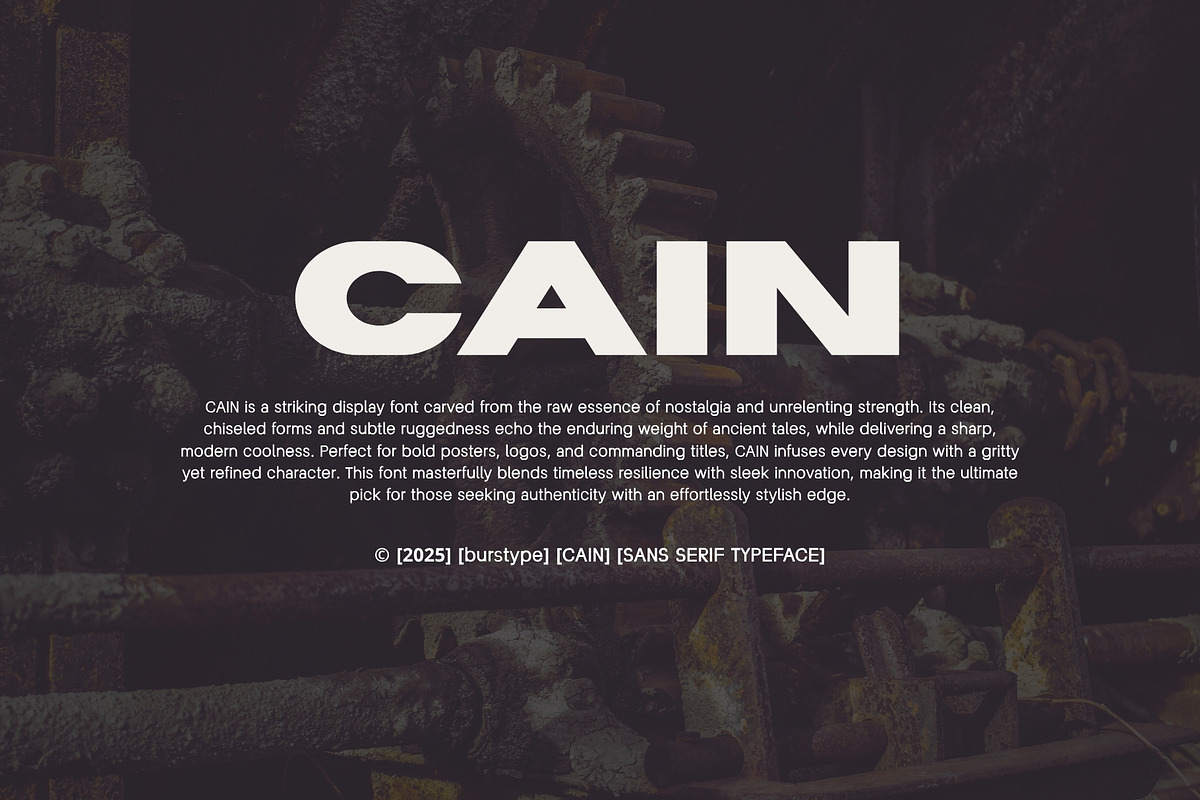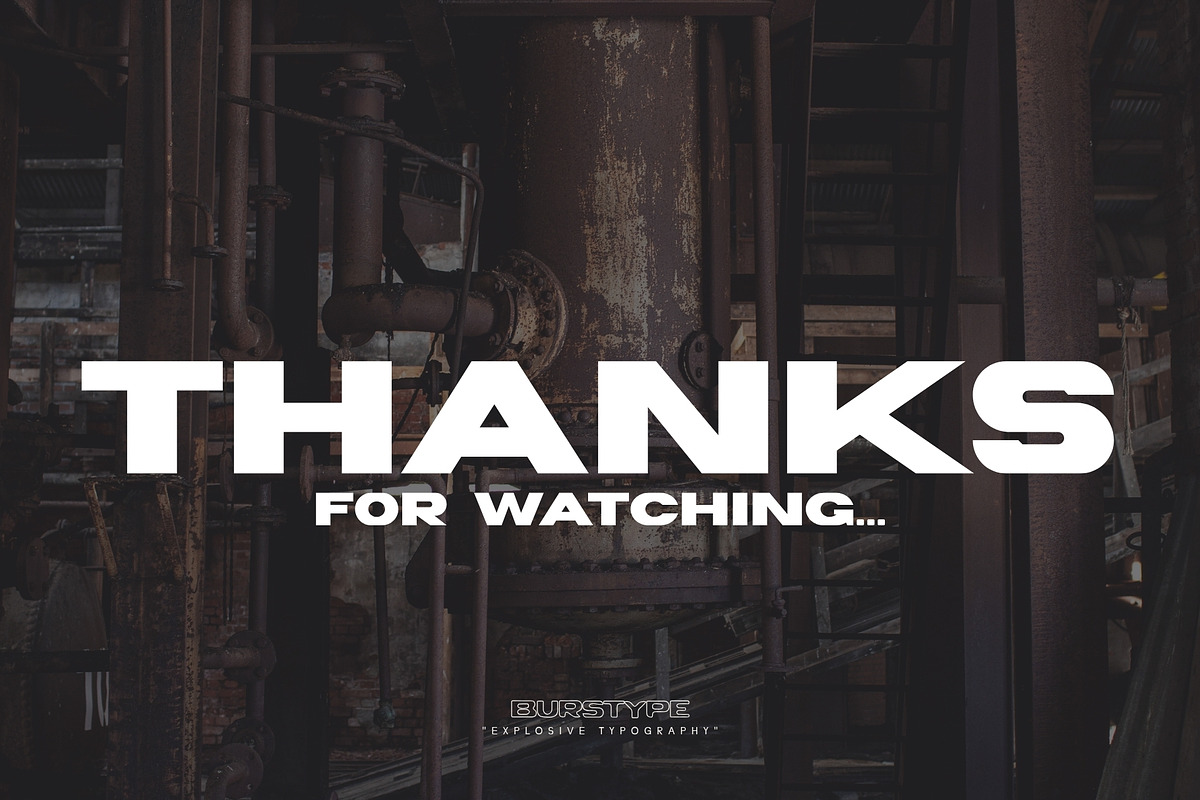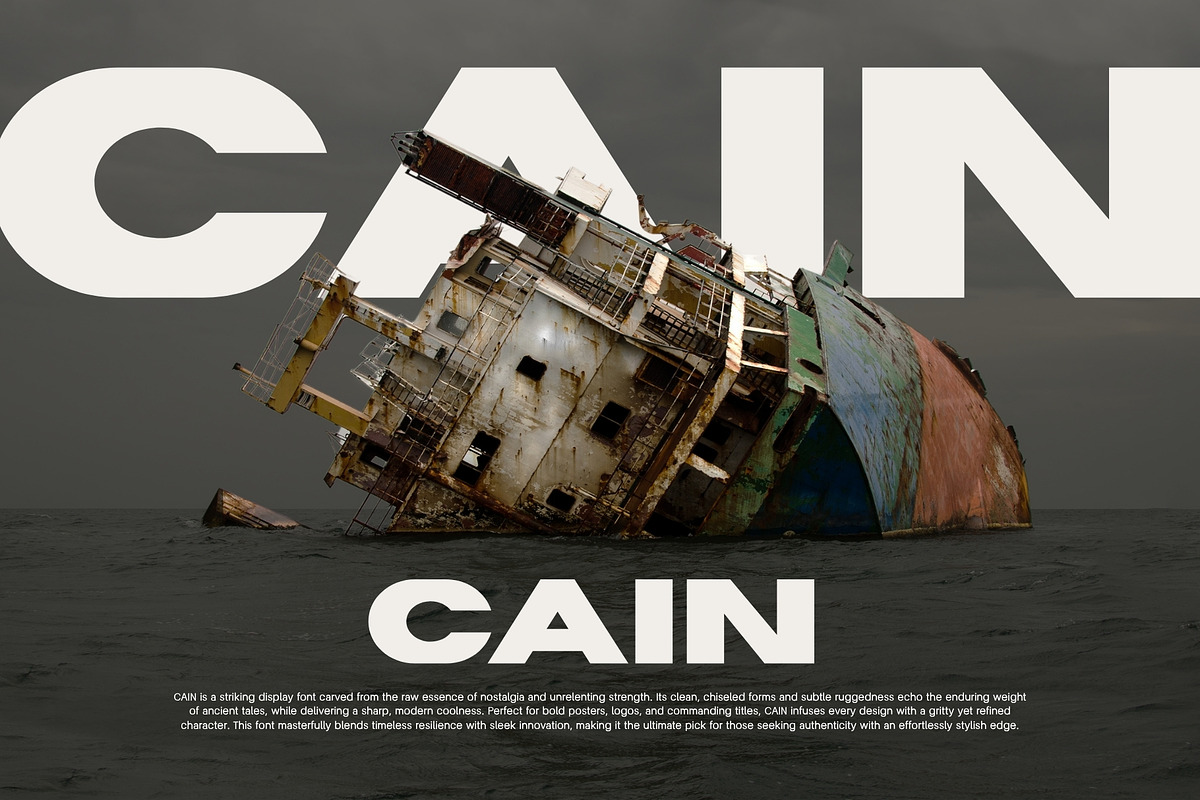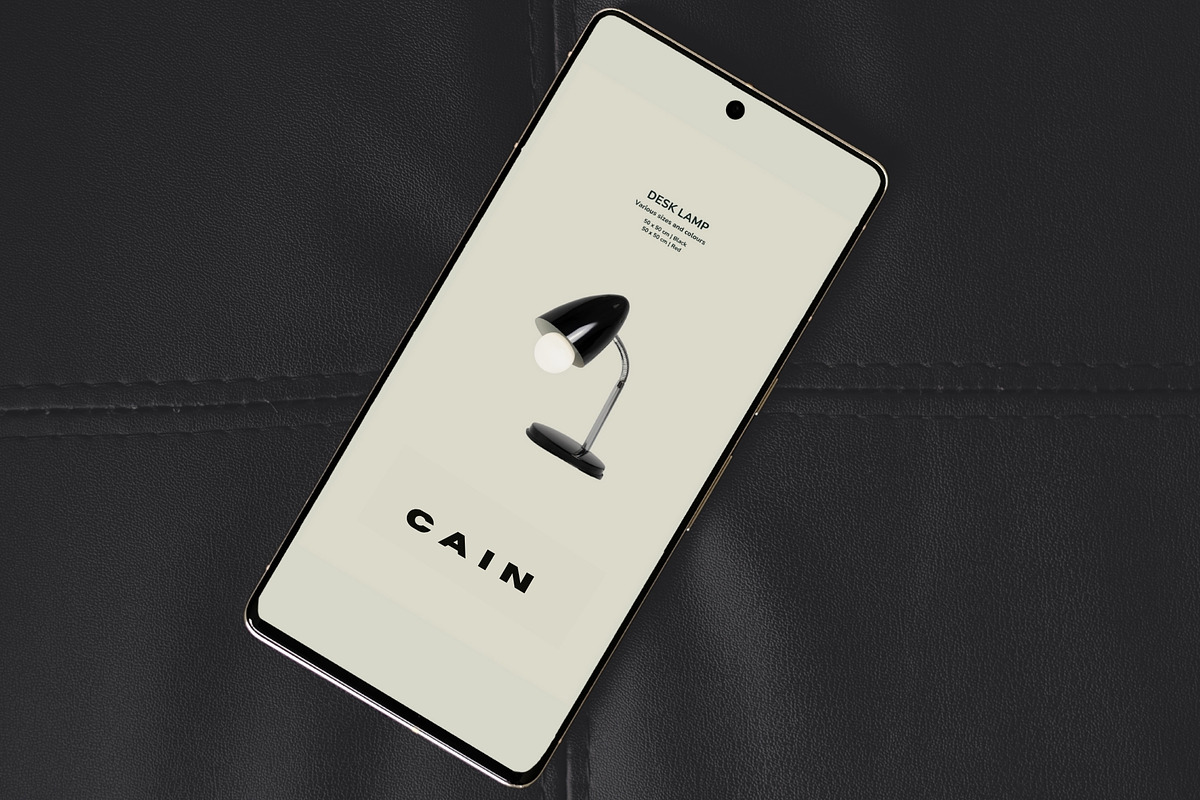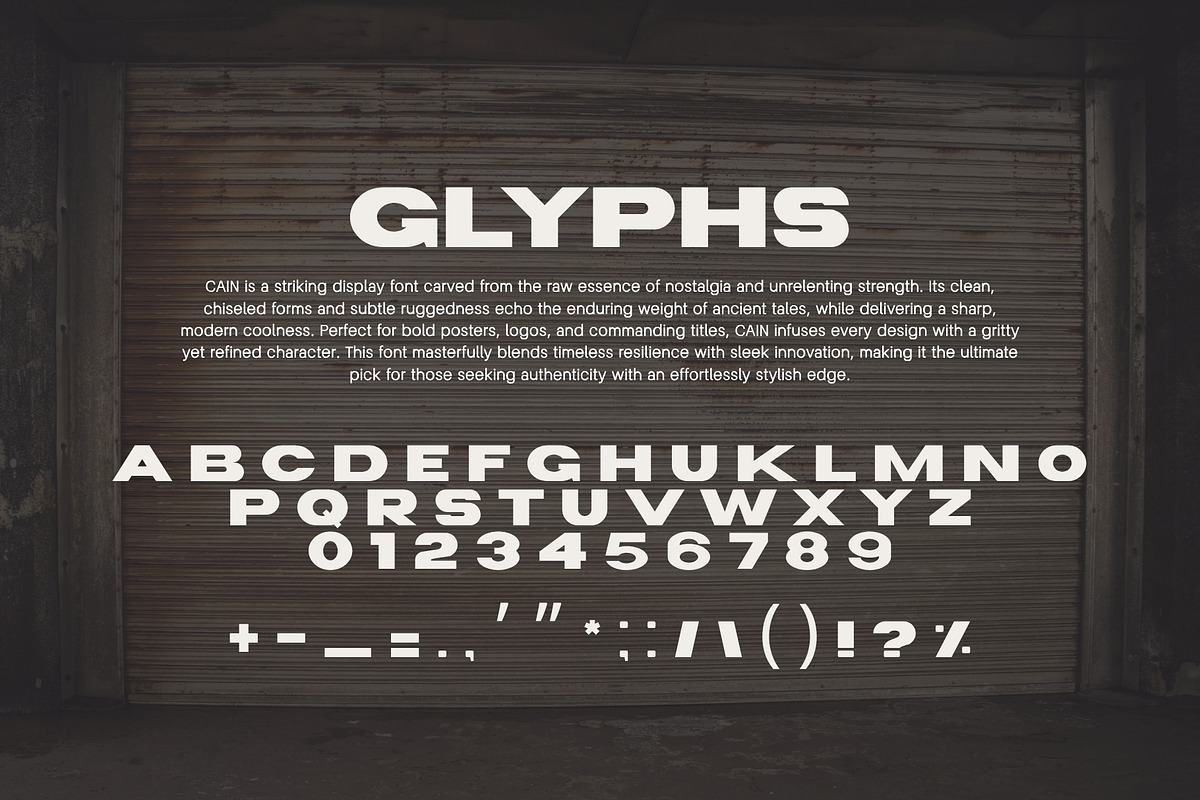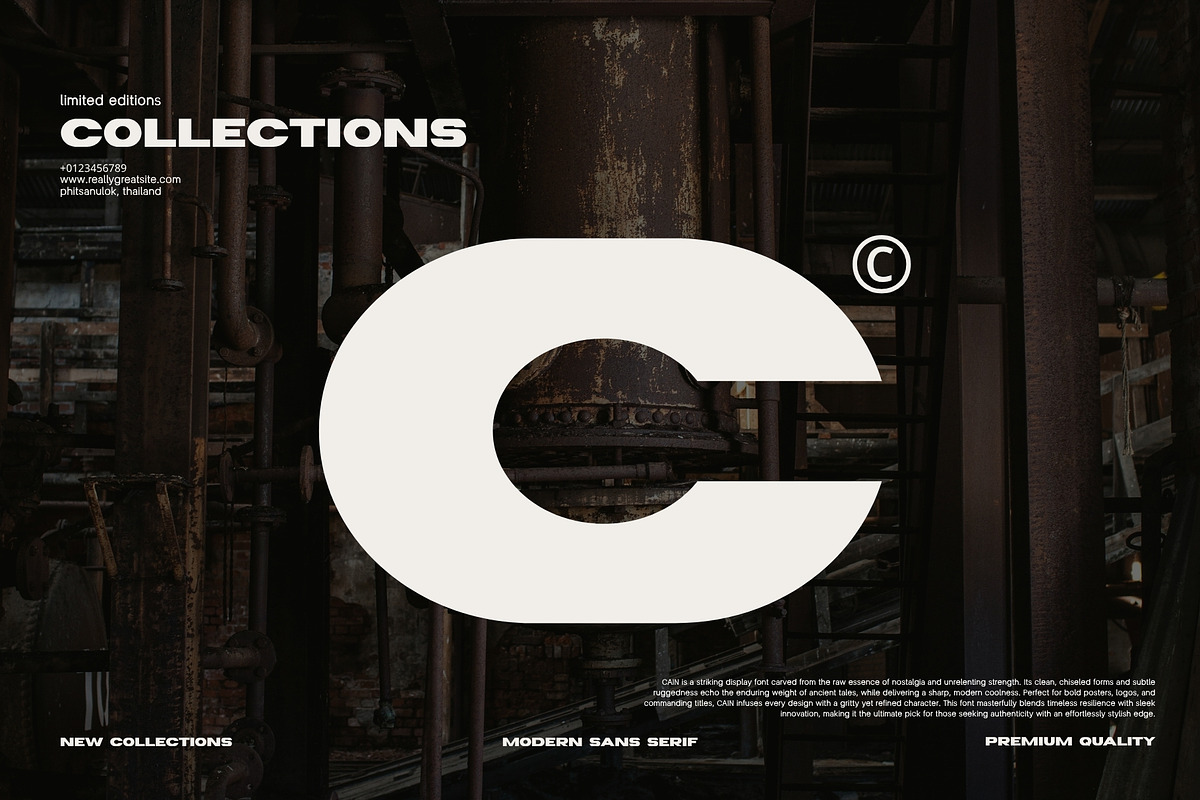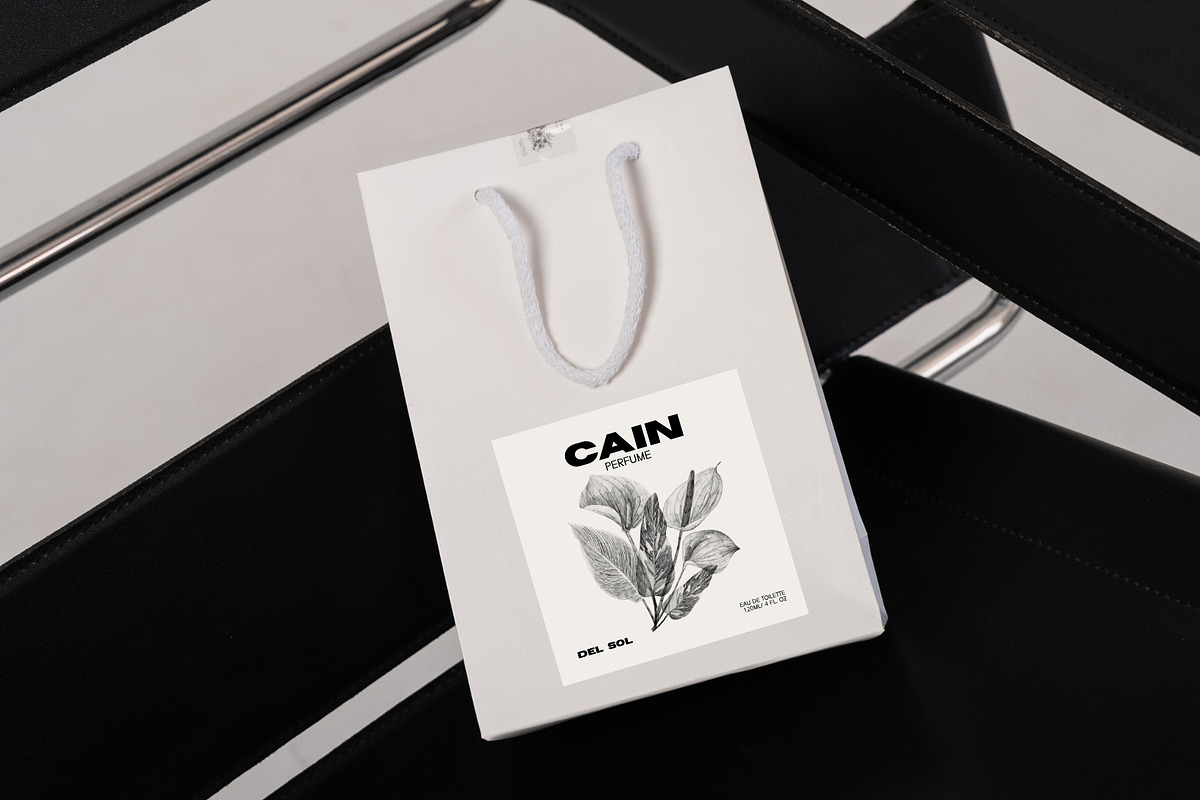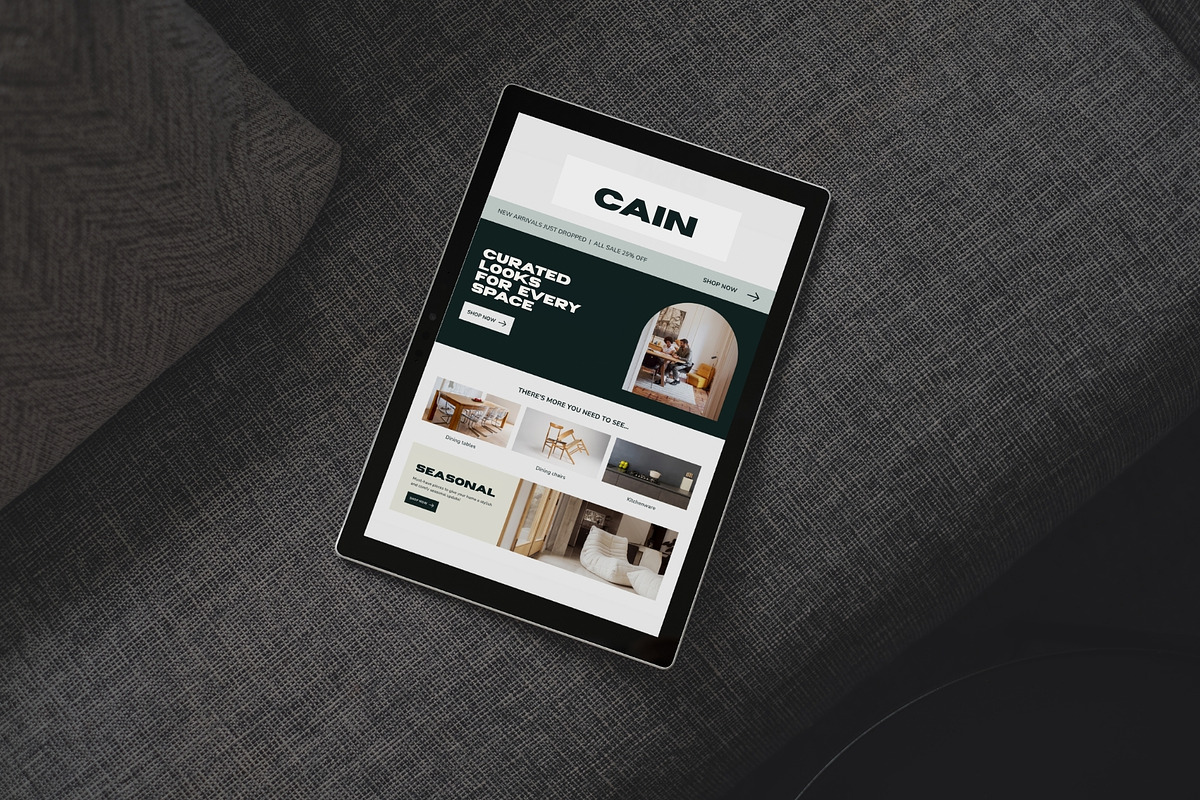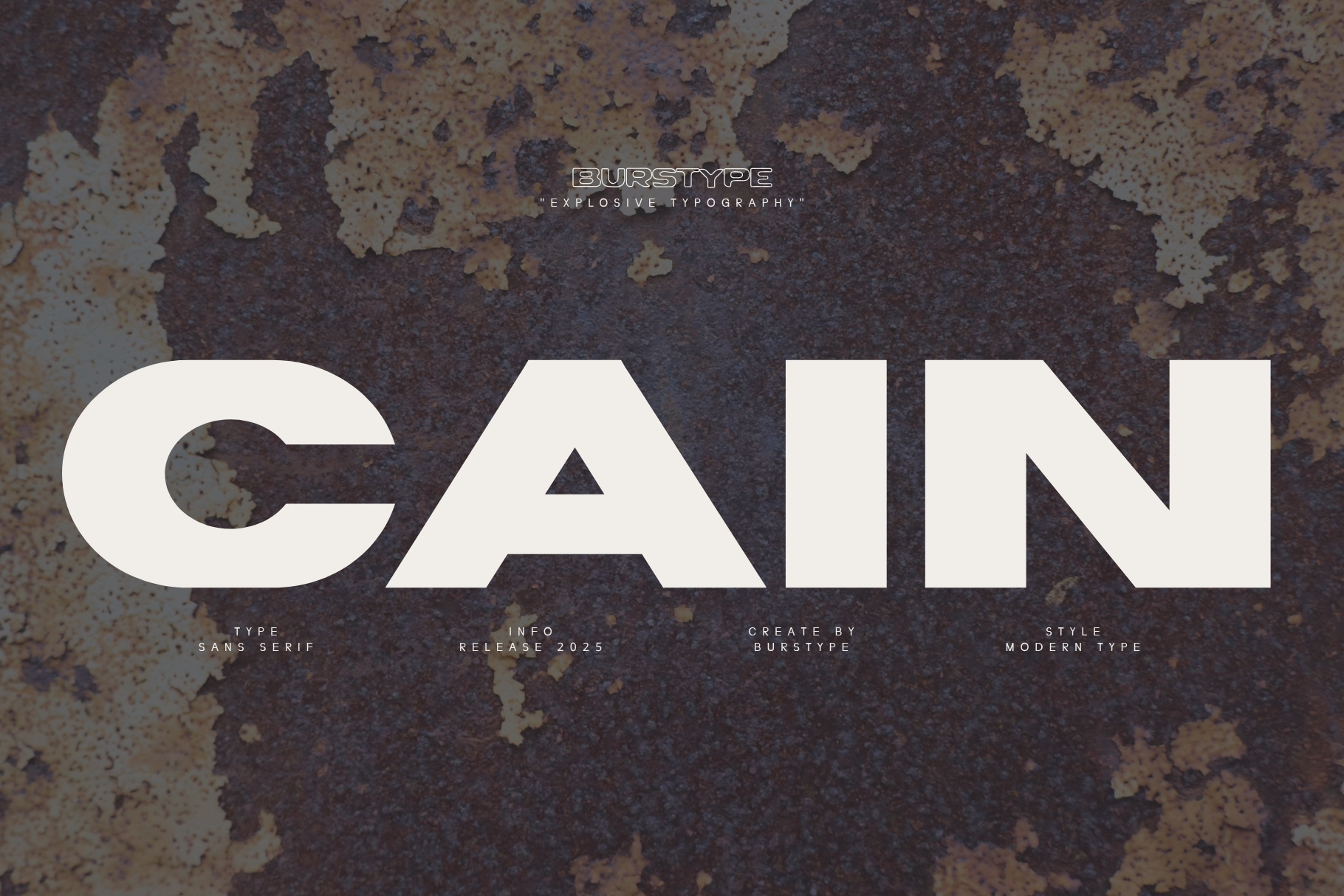
CAIN FONT - MODERNDISPLAY SAN SERIF
CAIN is a striking display font carved from the raw essence of nostalgia and unrelenting strength. Its clean, chiseled forms and subtle ruggedness echo the enduring weight of ancient tales, while delivering a sharp, modern coolness. Perfect for bold posters, logos, and commanding titles, CAIN infuses every design with a gritty yet refined character. This font masterfully blends timeless resilience with sleek innovation, making it the ultimate pick for those seeking authenticity with an effortlessly stylish edge.